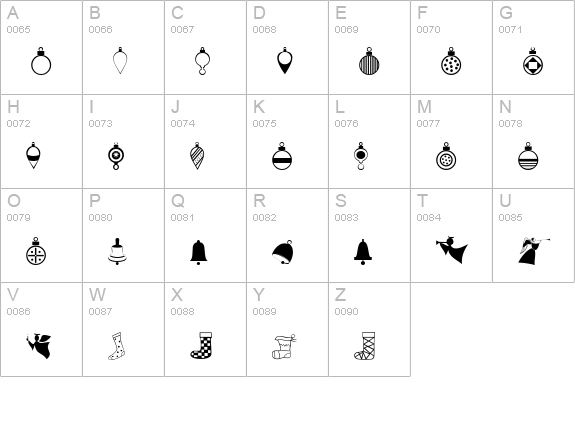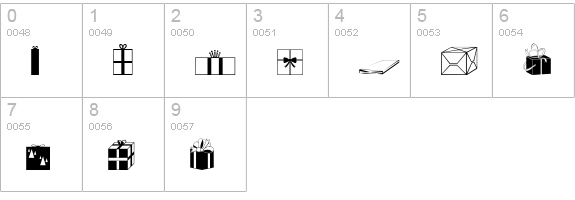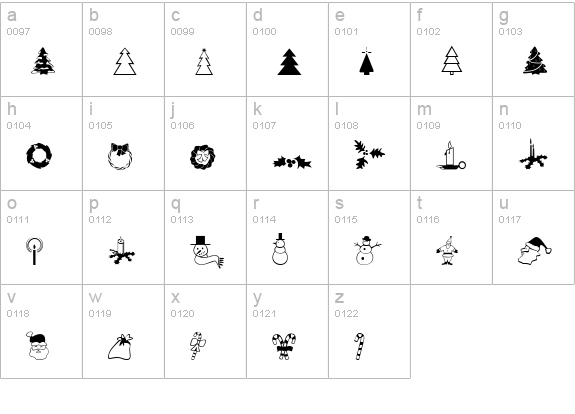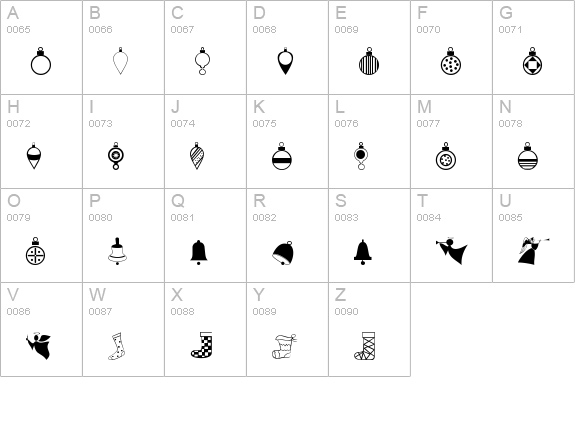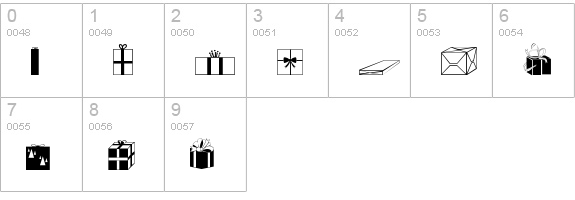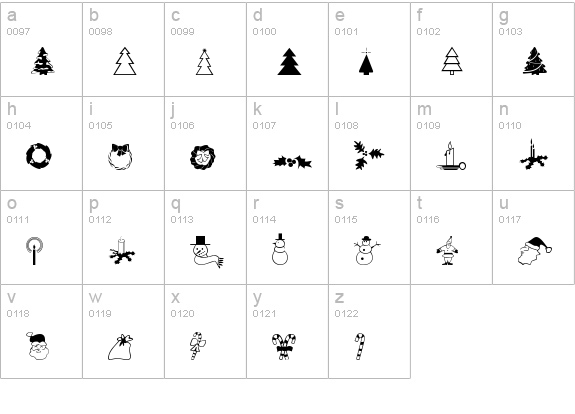
XmasDings Font Details
The XmasDings font is a whimsical and festive typeface perfect for adding a touch of holiday cheer to your designs. With its collection of Christmas-themed icons and symbols, XmasDings is sure to bring a jolly vibe to any project. From snowflakes and Santa hats to candy canes and reindeer, this font has everything you need to create merry graphics for the holiday season. Best of all, XmasDings is available for free download at FontsMarket.com. Simply visit the website to add this delightful font to your collection and spread the joy of Christmas in your designs. Whether you're creating greeting cards, party invitations, or social media graphics, XmasDings is the perfect font to infuse your projects with holiday spirit. Download it today and let your creativity shine this Christmas season!